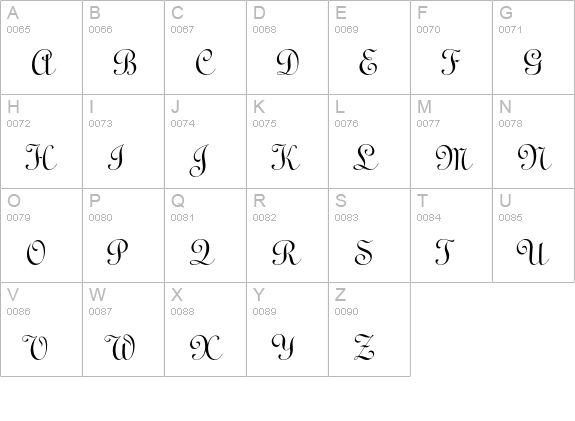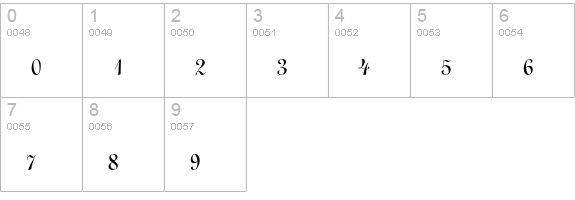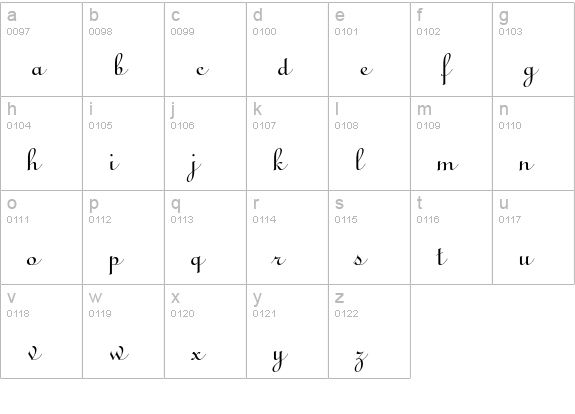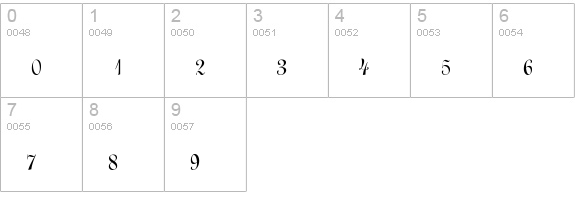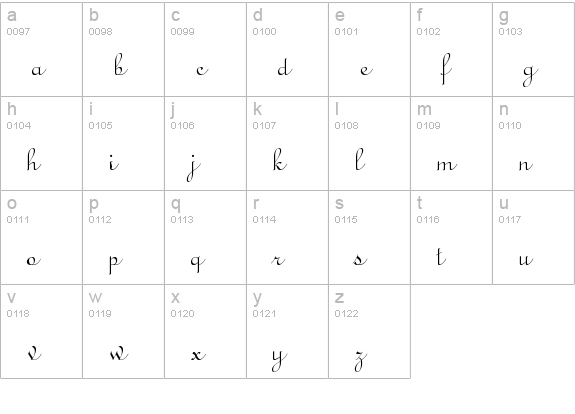
Typo Upright Font Details
Introducing Typo Upright, a beautifully crafted font that combines elegance with modernity. This versatile typeface is perfect for adding a touch of sophistication to any design project. With its clean lines and sleek curves, Typo Upright exudes a sense of professionalism and refinement. What sets Typo Upright apart is not only its stunning design, but also its accessibility. This font is available for free, making it an excellent choice for both personal and commercial use. Whether you're a graphic designer working on a client project or an individual looking to enhance your personal creations, Typo Upright is here to help you make a lasting impression. Downloading Typo Upright is quick and easy. Simply visit FontsMarket.com and find the font in their extensive collection. With just a few clicks, you'll have access to this remarkable font, ready to bring your ideas to life. Whether you're designing a logo, creating a striking headline, or crafting an eye-catching poster, Typo Upright is the perfect companion. Its timeless appeal and versatility make it suitable for a wide range of applications. The clean and legible letterforms ensure that your message is conveyed effortlessly, while the subtle details add an element of sophistication. Typo Upright is an excellent choice for those who appreciate the power of typography and want to elevate their designs. Its elegant and modern aesthetic will captivate audiences and leave a memorable impression. Don't miss out on experiencing this font's potential – download Typo Upright for free at FontsMarket.com and unleash your creativity today.